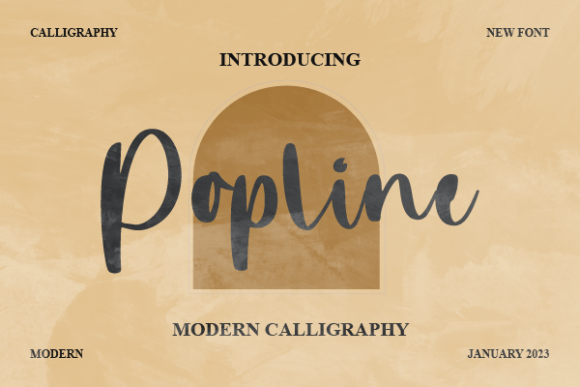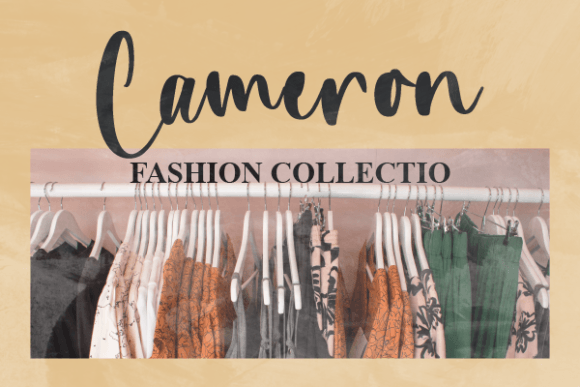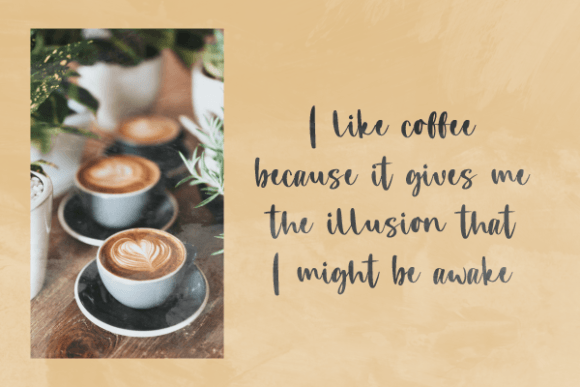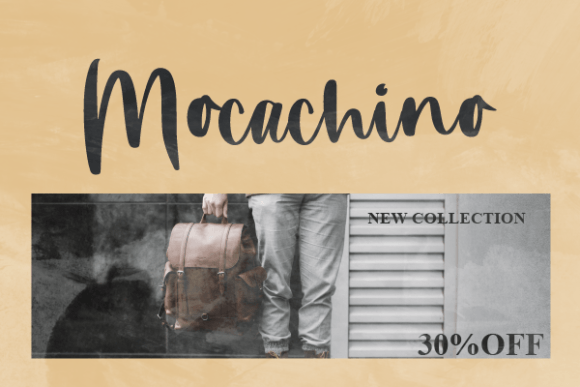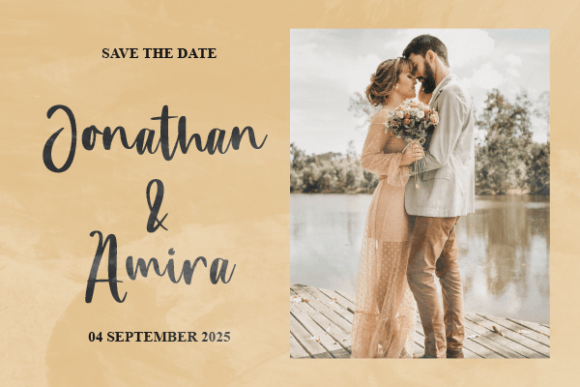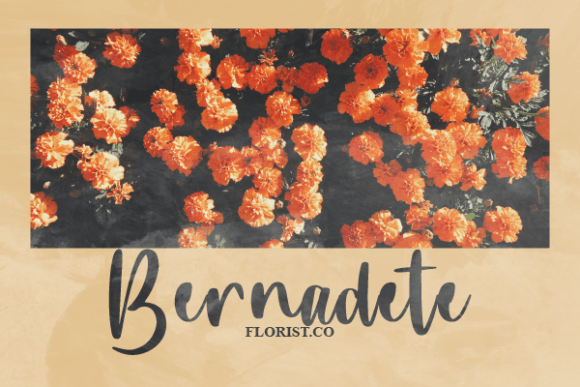
Popline
About Popline
Popline is an elegant and stylish handwritten font. Its latest style letters are perfect for wall displays, wedding invitations, social media post logos, advertisements, product packaging, product designs, labels, photography, watermarks, invitations, stationery, and any project that requires taste handwriting.